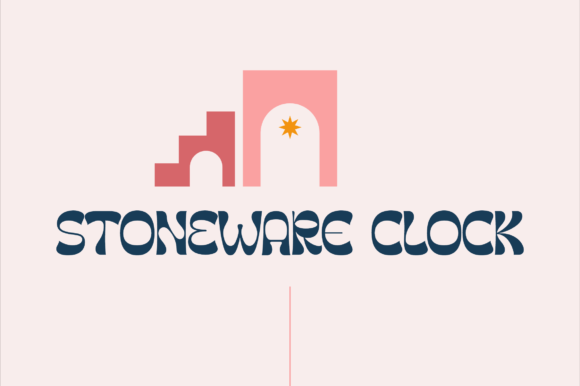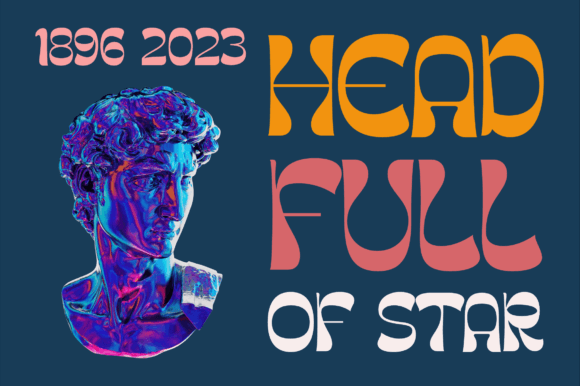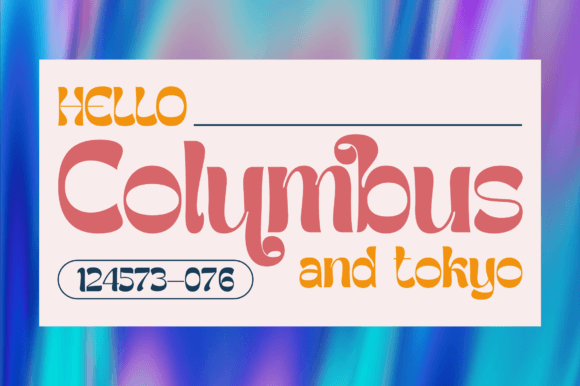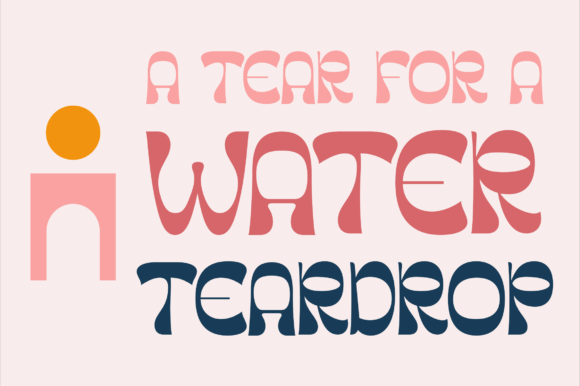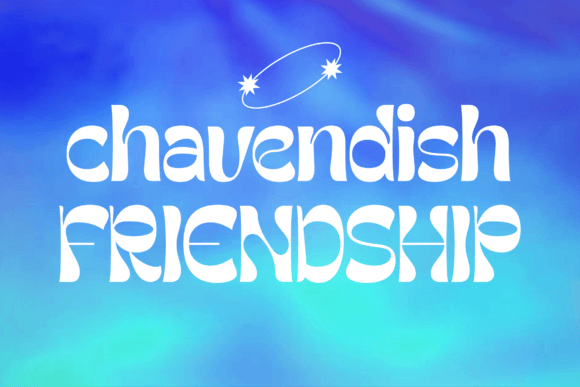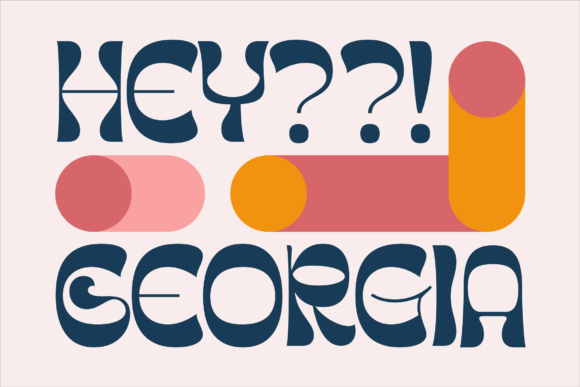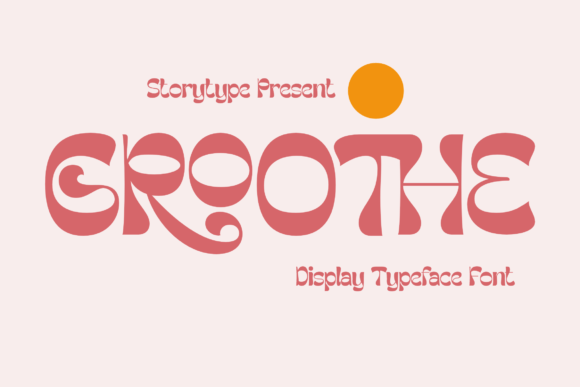
Groothe Font: The Groovy and Fun Display Font to Elevate Your Craft
In the world of design, fonts play a crucial role in making your product stand out from the competition. A unique and eye-catching font can instantly elevate your craft and leave a lasting impression on your audience. If you’re on the lookout for a font that exudes a groovy and fun vibe, look no further than Groothe Font. In this article, we’ll dive into the features and benefits of Groothe Font and explore how it can enhance your design projects with little effort.
What is Groothe Font?
Groothe Font is a display font designed to add a touch of playfulness and quirkiness to your designs. With its bold and curvy lines, this font is perfect for designers and crafters who want to create eye-catching products that pop. Groothe Font is a versatile typeface that can be used for a wide range of projects, from branding and packaging to posters and social media graphics.
Key Features of Groothe Font
- Groovy and Fun Design: Groothe Font boasts a unique and fun design that’s sure to grab attention. Its bold and curvy lines give it a playful vibe that’s perfect for designers who want to create products that stand out.
- Ease of Use: Groothe Font is incredibly easy to use, even for designers who are new to typography. Its simple and intuitive design makes it easy to pair with other fonts and design elements.
- High-Quality Design: Groothe Font is designed with high-quality craftsmanship in mind. Its crisp and clean lines ensure that it looks great in any size or resolution.
- Versatility: Groothe Font is a versatile typeface that can be used for a wide range of projects, from digital designs to print materials.
Benefits of Using Groothe Font
So why should you choose Groothe Font for your design projects? Here are just a few benefits of using this amazing font:
- Instantly Elevate Your Craft: With Groothe Font, you can instantly elevate your craft and make your product stand out from the competition. Its unique and eye-catching design ensures that your product will grab attention.
- Save Time and Effort: Groothe Font is incredibly easy to use, which means you can save time and effort on your design projects. Its simple and intuitive design makes it easy to pair with other fonts and design elements.
- Enhance Your Brand: Groothe Font can help enhance your brand and create a consistent visual identity. Its bold and curvy lines make it perfect for creating eye-catching logos, posters, and social media graphics.
How to Use Groothe Font
Using Groothe Font is incredibly easy. Here are a few tips to get you started:
- Pair it with Other Fonts: Groothe Font pairs well with a wide range of fonts, from serif to sans-serif. Experiment with different font combinations to create a unique and eye-catching design.
- Use it for Headings and Titles: Groothe Font is perfect for headings and titles. Its bold and curvy lines make it easy to read and attention-grabbing.
- Experiment with Colors and Textures: Groothe Font looks great in a wide range of colors and textures. Experiment with different design elements to create a unique and eye-catching design.
In conclusion, Groothe Font is a groovy and fun display font that’s perfect for designers and crafters who want to create eye-catching products. Its unique and eye-catching design, ease of use, and versatility make it a must-have font for any designer. Whether you’re creating branding materials, posters, or social media graphics, Groothe Font is sure to enhance your craft and make your product stand out from the competition.